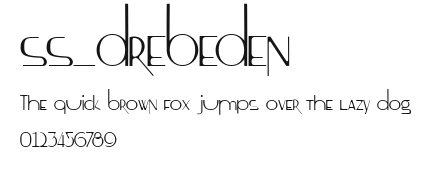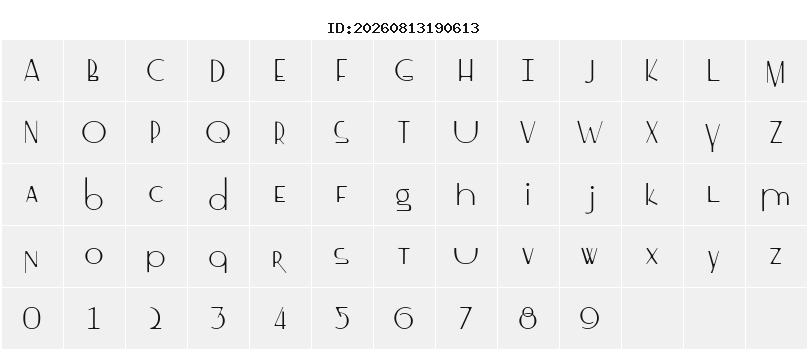
• Font Name: ss_drebeden
ss_drebeden.ttf is a modern, elegant sans-serif font designed for ultimate readability and visual harmony. Perfect for branding, headlines, web design, and print materials.